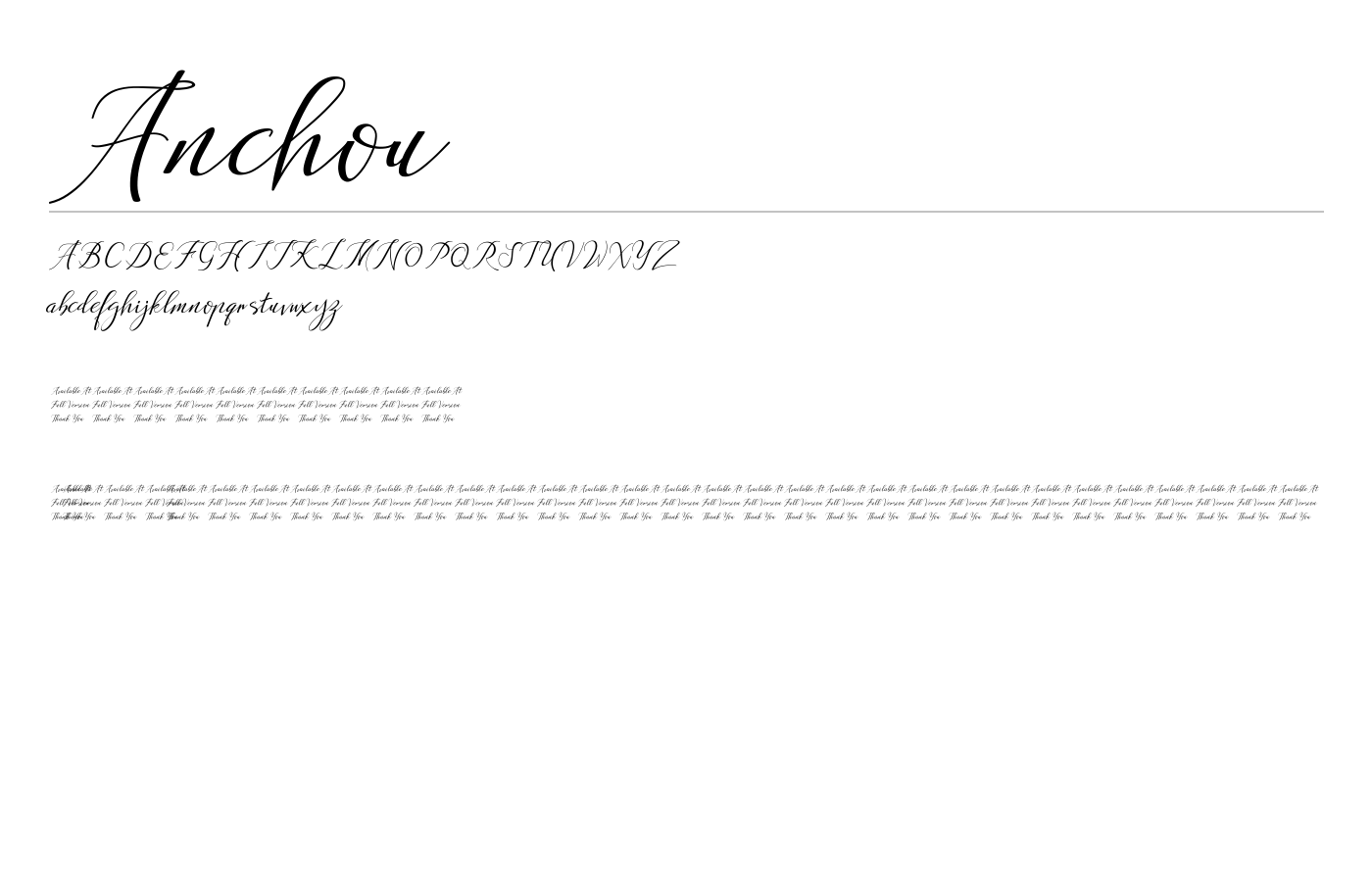
Anchou is an elegant and delicate script font characterized by its fine, flowing strokes and graceful curves, evoking a sense of sophistication and charm. Perfect for invitations, luxury branding, and stylish editorial use, this font adds a refined, handwritten touch that enhances any design with its classic and romantic personality.
Anchou Font
About Anchou Font